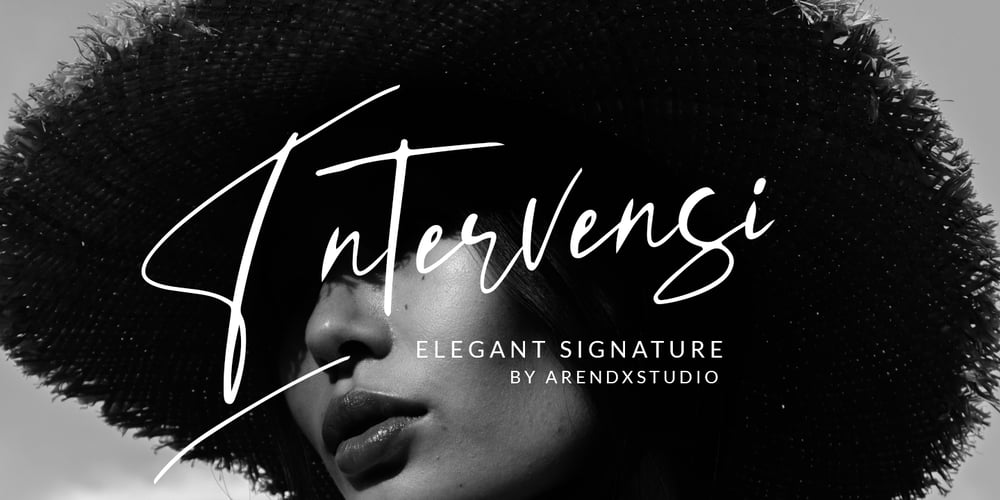
Intervensi Font Family was designed by Asep Rendi and published by Arendxstudio. Intervensi contains 1 styles and family package options. Intervensi is an elegant, hand drawn signature font, perfect for wedding card design, logotype, website headers, fashion design and much more. Features : • Character Set A-Z • Numerals & Punctuations (OpenType Standard) • Accents (Multilingual characters) • Swash